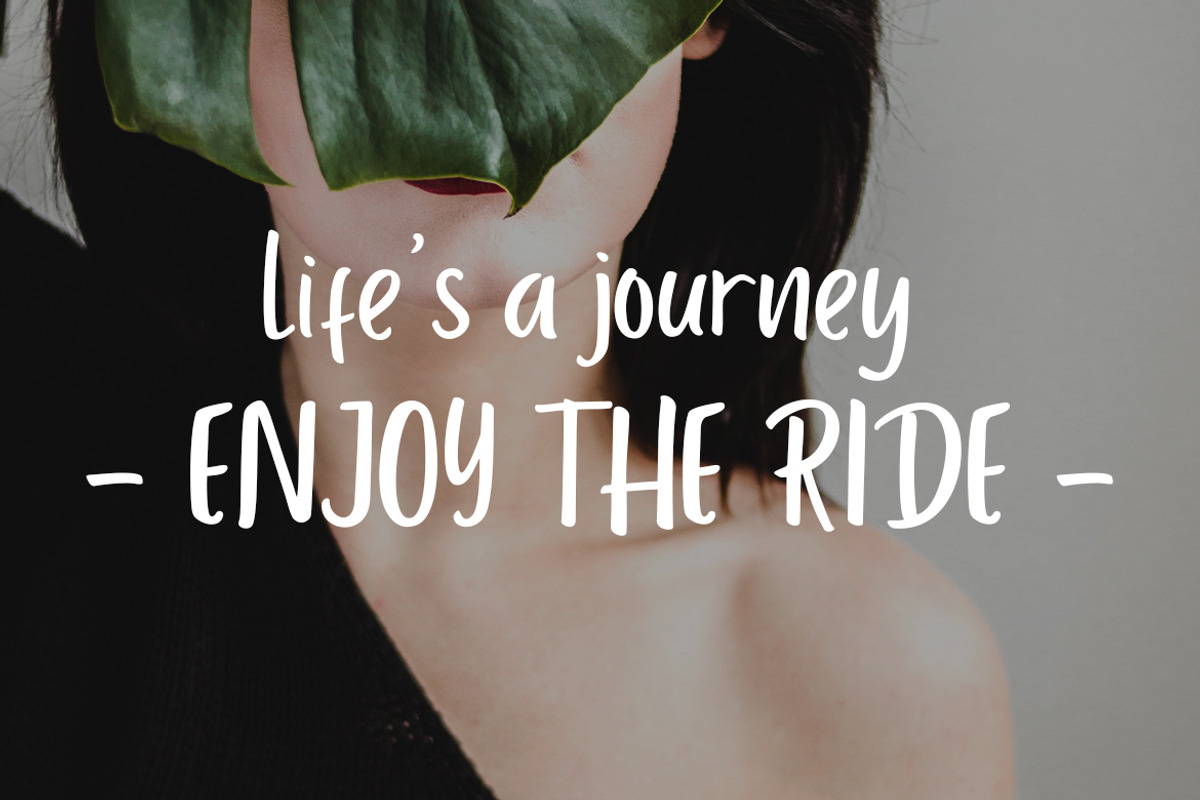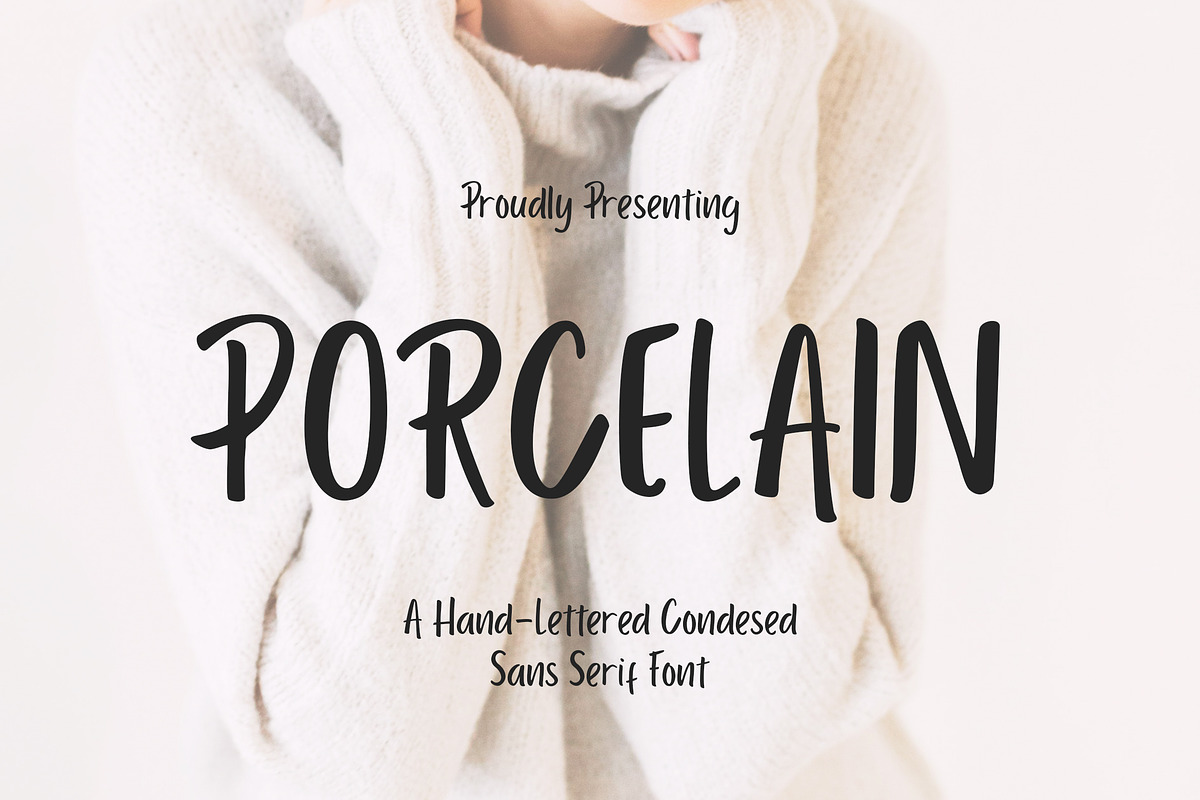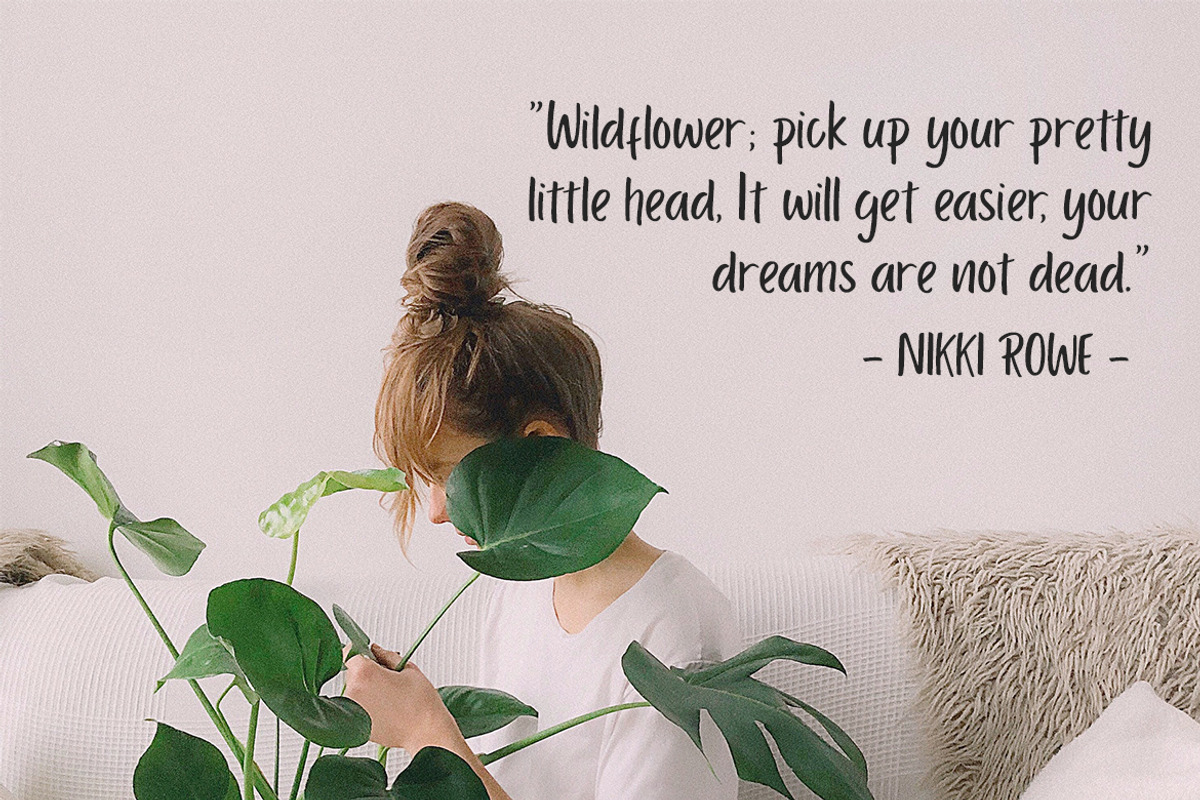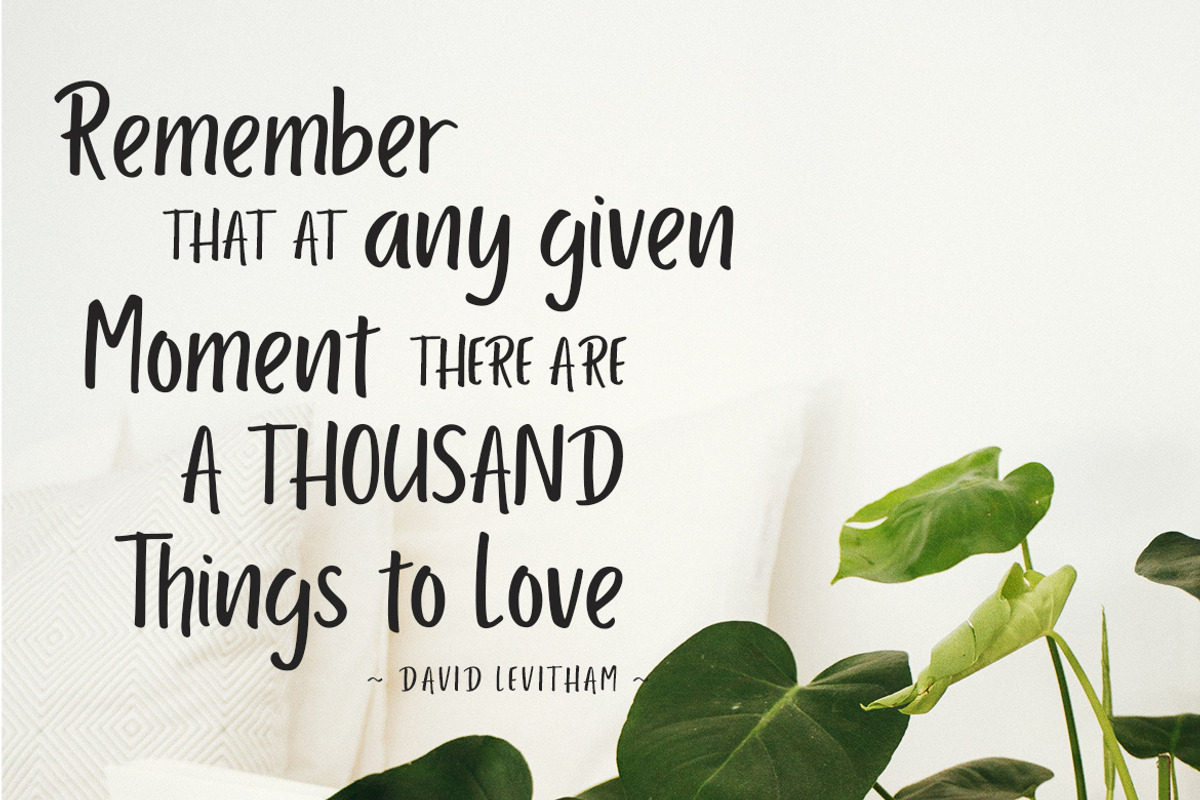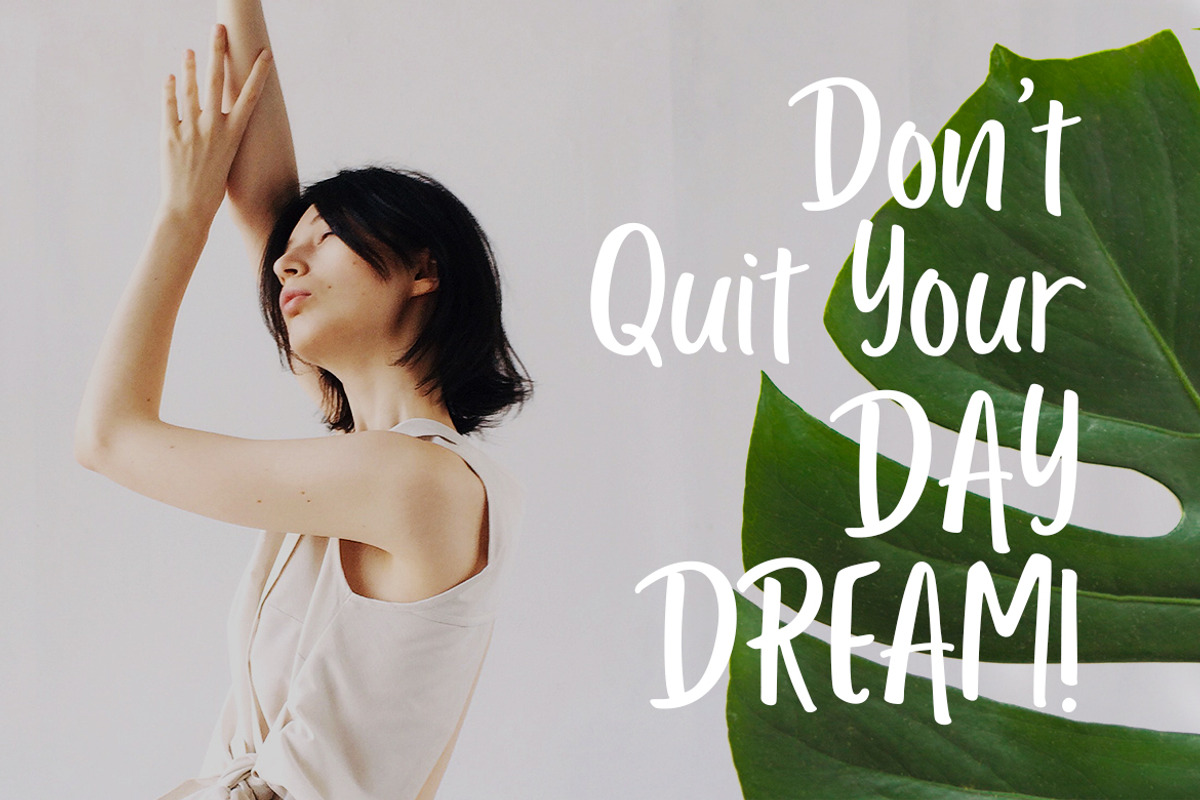
Porcelain Sans Business Font
Porcelain is a hand-lettered condensed sans serif font with subtle dip-pen texture to get that personal touch feel.
Porcelain is perfect for branding projects, logo, wedding designs, social media posts, advertisements, product packaging, product designs, label, photography, watermark, invitation, stationery and any projects that need handwriting taste.
- Fonts include multilingual support for; ä ö ü Ä Ö Ü ß ¿ ¡
Porcelain Sans Business Font by Creatype Studio fits naturally into Branding, posters, packaging, typography.